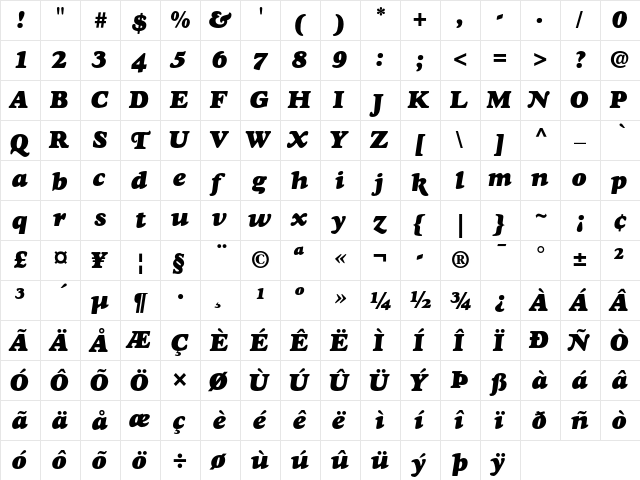
Goudy Heavyface Italic
Design Context for Goudy Typeface
Goudy is a composed and adaptable typeface that performs quietly and consistently across a wide range of design contexts. The slanted form adds forward momentum and visual energy.
Pro Tip: Try Goudy for annotation and caption copy alongside an upright companion — the contrast in angle creates a dynamic but ordered typographic system.